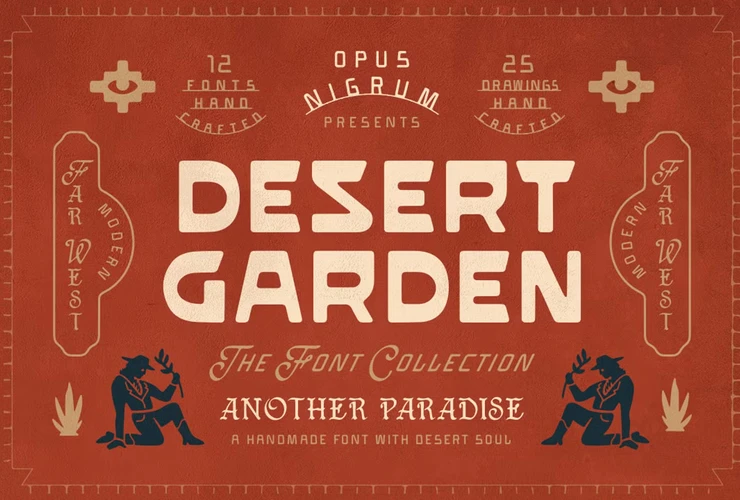
Desert Garden Font Collection: A Tribute to the Modern Far West
The Desert Garden Font Collection is a captivating blend of handmade typefaces inspired by the rich cultural tapestry of the old American West, Spanish heritage, and native traditions. This unique collection, designed by Opus Nigrum, evokes the spirit of the American desert, the allure of the Mexican border, and the rugged charm of new-age cowboys. Each font in the collection encapsulates the art of the desert, drawing inspiration from Mezcal and whiskey labels, as well as vintage store signs. The result is a set of typefaces that are both nostalgic and contemporary, reflecting inherited values intertwined with new spiritual and brotherhood ideals.
Features and Versatility
The Desert Garden Font Collection offers a diverse array of styles, including Regular, Eroded, Outline, Condensed, Mix, Script, Slim, Iron Sign, Soul, and Soul Italic. This extensive variety ensures that designers have the flexibility to create visually stunning and cohesive designs across different mediums. Whether you’re working on branding, packaging, posters, or digital media, these fonts provide a perfect blend of modernity and tradition.
In addition to its robust typeface options, the collection includes over 25 illustrative drawings and nine premade designs, available in Illustrator format. These extras further enhance the creative possibilities, allowing designers to craft unique and memorable visuals. The fonts also support multiple languages, including Czech, Danish, English, Estonian, Faroese, Finnish, French, German, Icelandic, Italian, Norwegian, Polish, Portuguese, Slovenian, Spanish, Swedish, Turkish, and Welsh, making them suitable for a global audience.